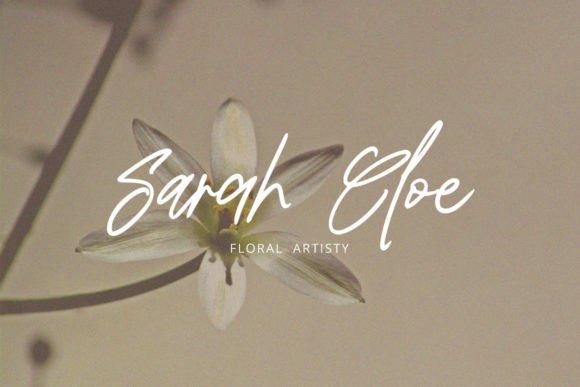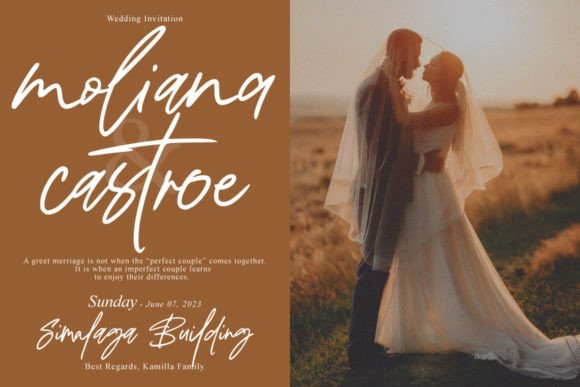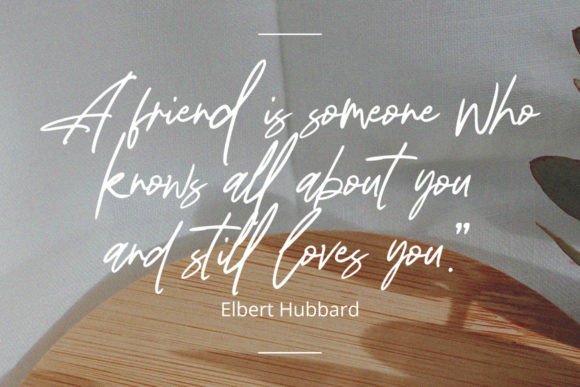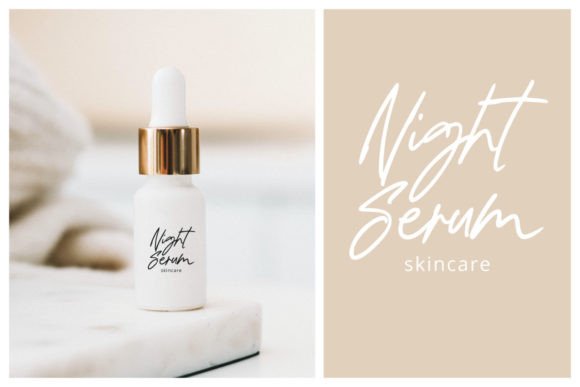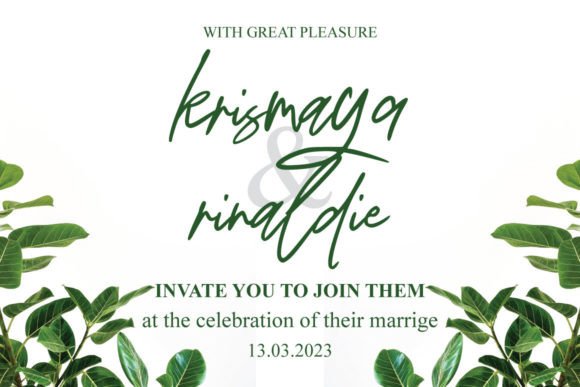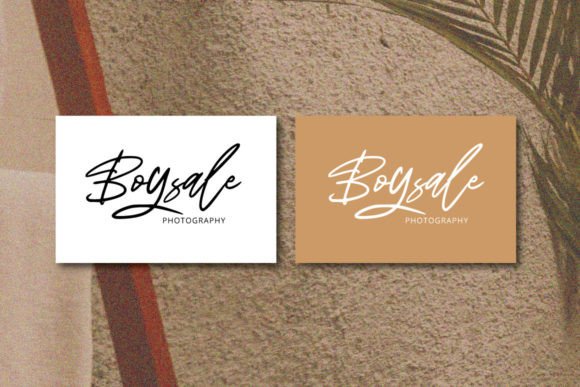
Introduction to Palosty Font
As a designer, there’s nothing quite like the thrill of discovering a new font that elevates your creative project to the next level. For me, that moment came when I stumbled upon the stunning Palosty Font. Its elegant signature script design had me hooked from the very first glance, and I knew I had to learn more.
With its classic and modern design elements expertly blended together, Palosty Font is the perfect choice for high-end design projects that require a touch of sophistication and refinement. Whether you’re working on a wedding invitation, branding, or any other creative project that demands a high-quality design, Palosty Font is an excellent resource to have in your toolkit.
Key Features of Palosty Font
- High-quality design for creative projects: Palosty Font is designed to provide a unique and visually appealing look for your designs.
- Unique characteristics: The Palosty Font features a distinctive and creative design, making it an excellent choice for designers looking to add a touch of personality to their work.
Honest Review: Palosty Font
As a designer, I’m always on the lookout for high-quality design resources to elevate my creative projects. Recently, I stumbled upon the Palosty Font, and I’m excited to share my honest review with you.
- Unique and stylish design: The Palosty Font boasts a distinctive and modern look that’s perfect for adding a touch of sophistication to any project.
While the Palosty Font is a great addition to any designer’s toolkit, there are a few limitations to consider:
- Limited character set: The font only includes a limited character set, which may not be suitable for projects that require a wide range of characters.
- No bold or italic variants: The font only comes in a regular weight, which may limit its versatility in certain design applications.
Overall, I’m impressed with the Palosty Font’s unique design and transparent background. While it may have some limitations, it’s still a valuable design resource that’s worth considering for your next creative project.
Common Use Cases for Palosty Font
Palosty Font is a versatile design resource that can be used in a variety of creative projects, including logos, business cards, posters, and social media graphics. Its unique design style makes it particularly well-suited for projects that require a high level of creativity and visual appeal.